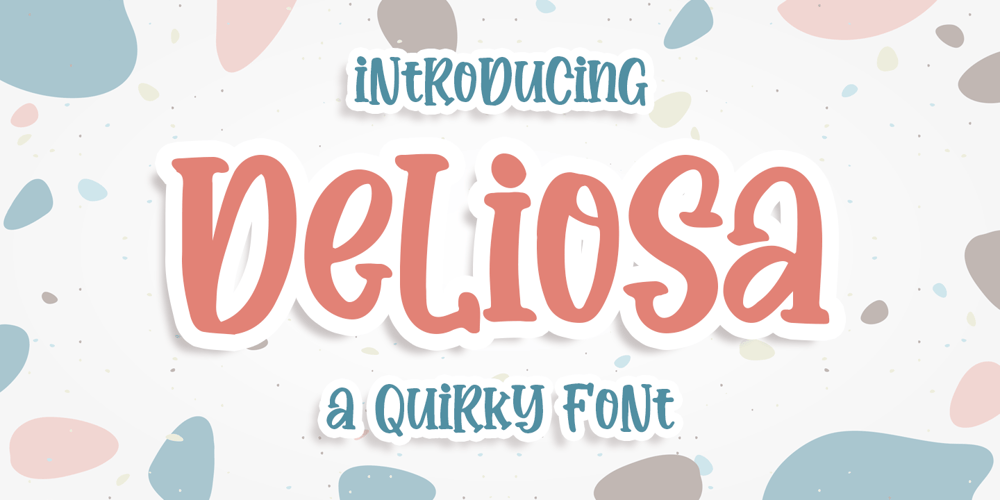
Deliosa
Deliosa font
Deliosa Font Family was designed by Bangkit Tri Setiadi and published by Blankids. Deliosa contains 1 styles and family package options. Introducing of our new product the name is Deliosa a Quirky Font. Deliosa inspired by Quirky Handwritten style this font is a fun theme very good for display, tshirt design, craft, quote sign, logotype and etcFEATURES : Uppercase Lowercase Number Punctuation Multilingual PUA Encode Opentype